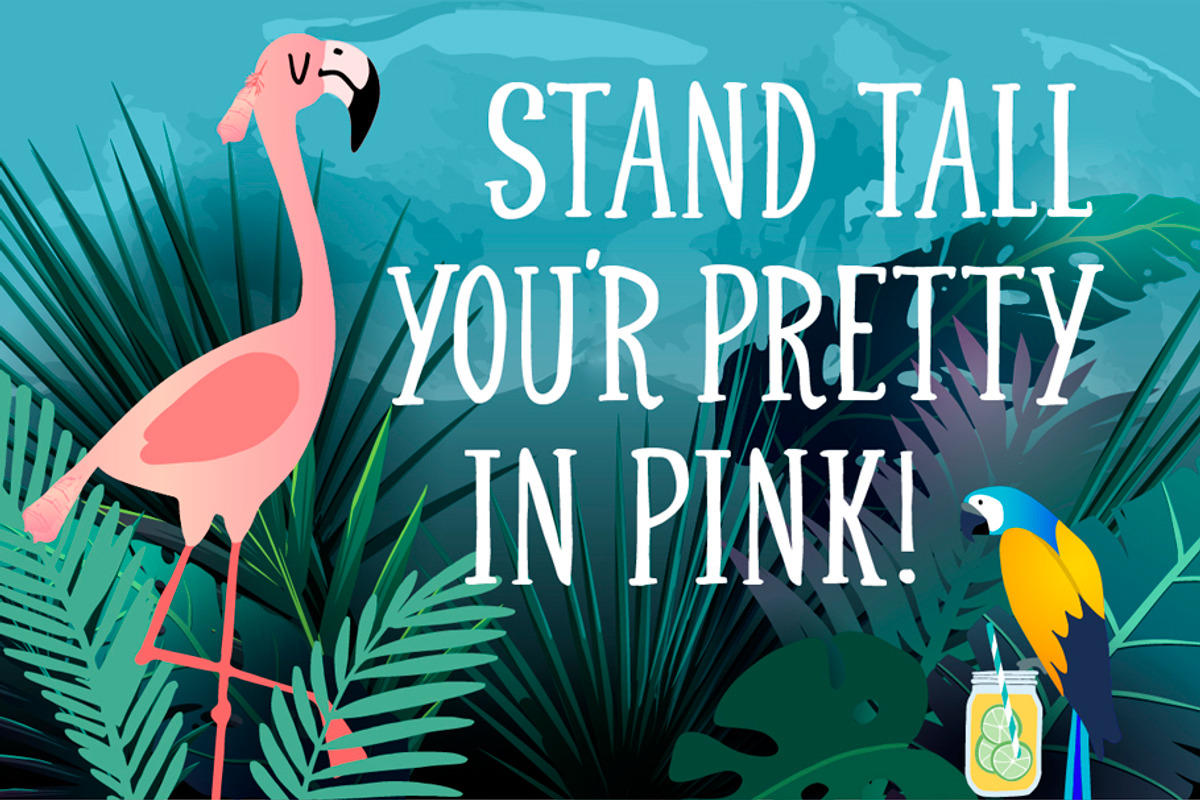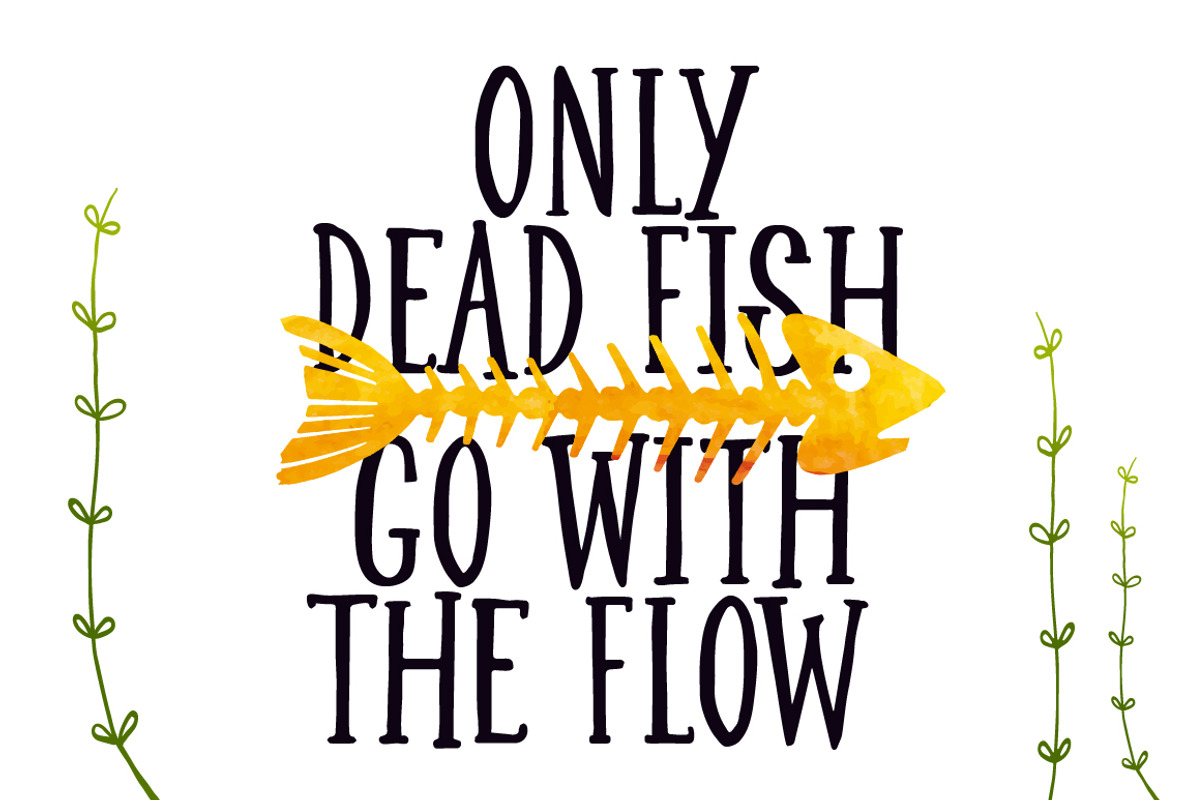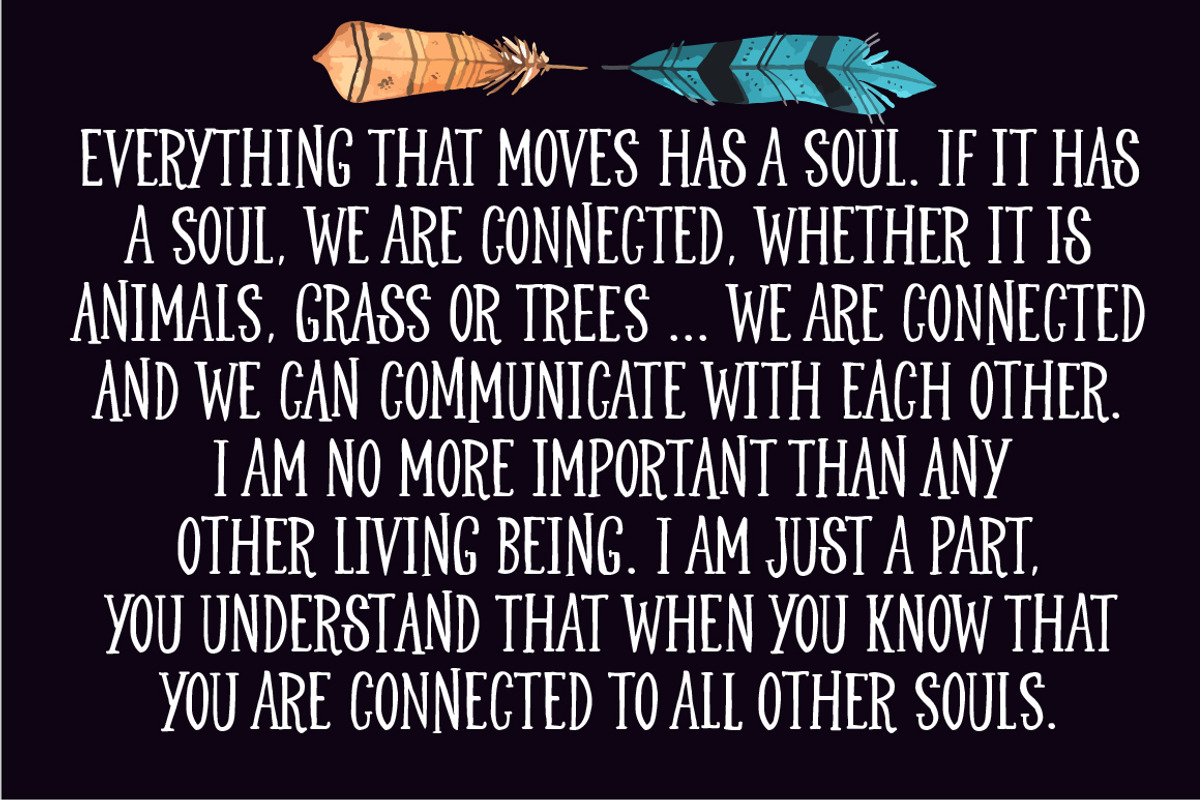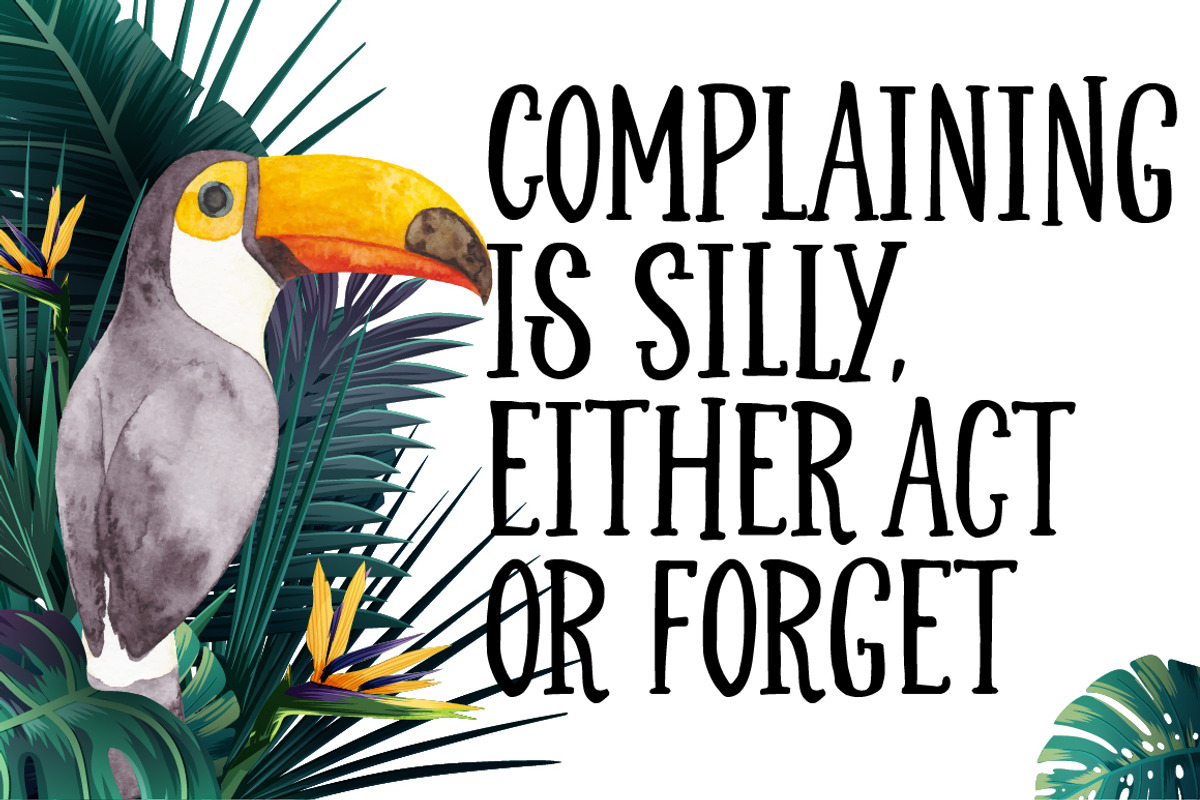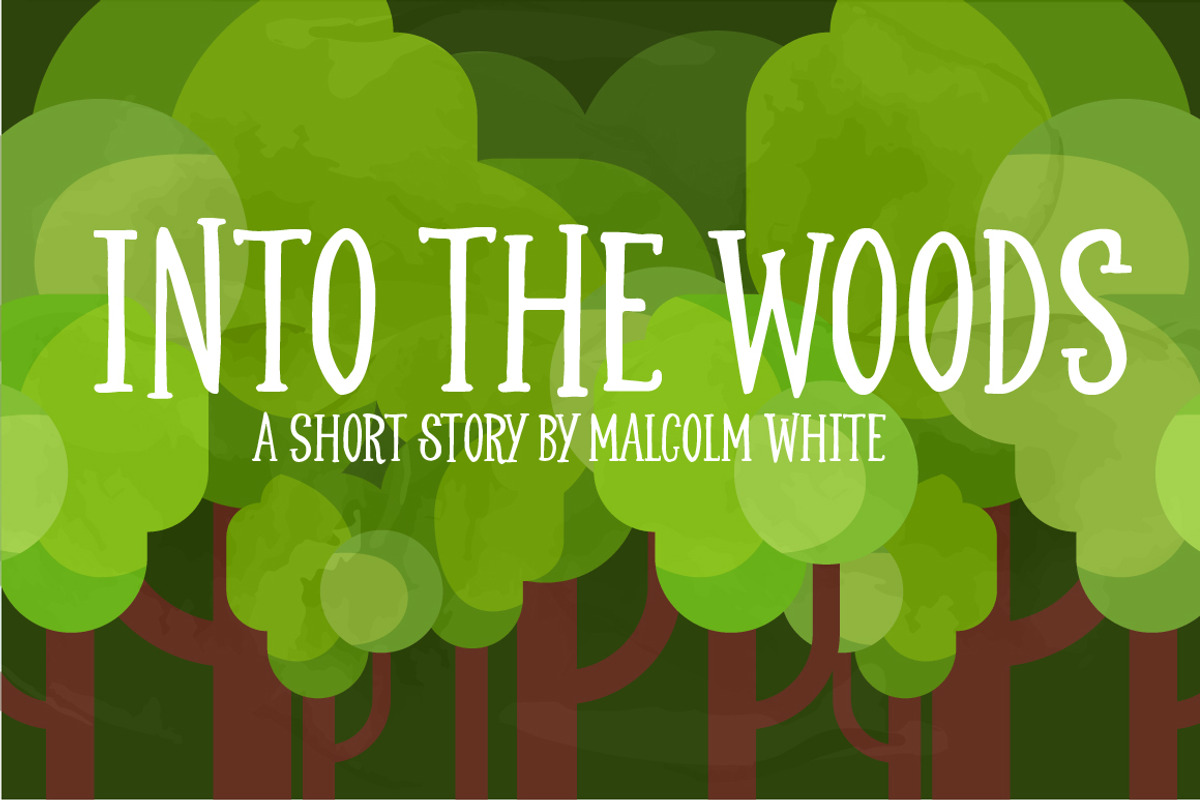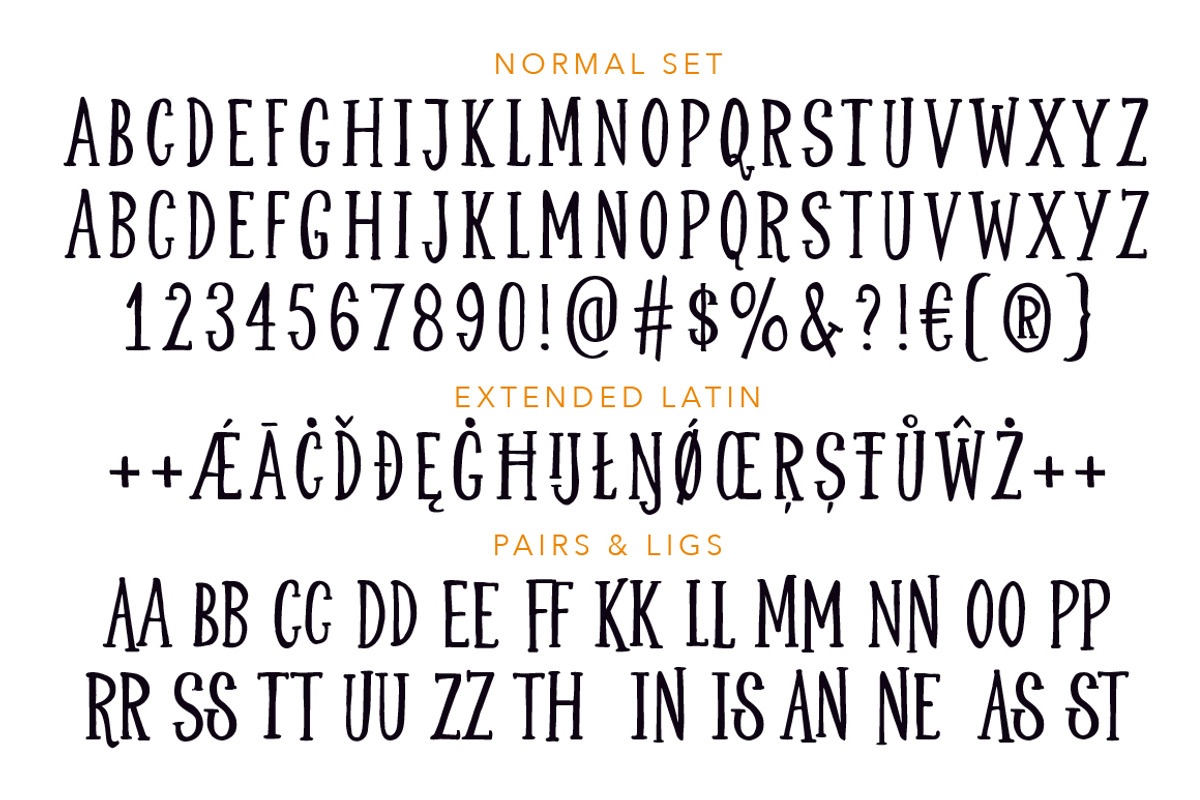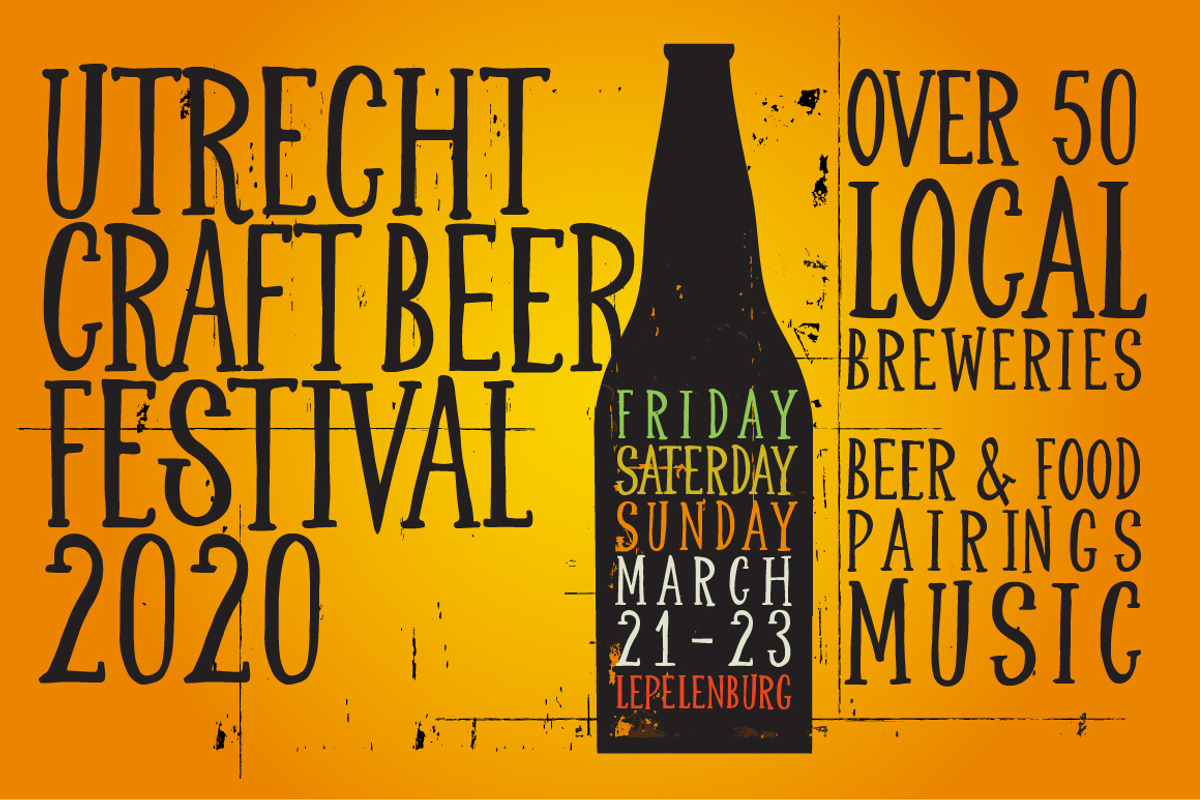
Chaumin Handcrafted font
Chaumin is a fun, usable handwritten font made to convey the feeling of handwritten charm and personality!
Chaumin Handcrafted font by TypeFaith Fonts fits naturally into Branding, posters, packaging, typography.